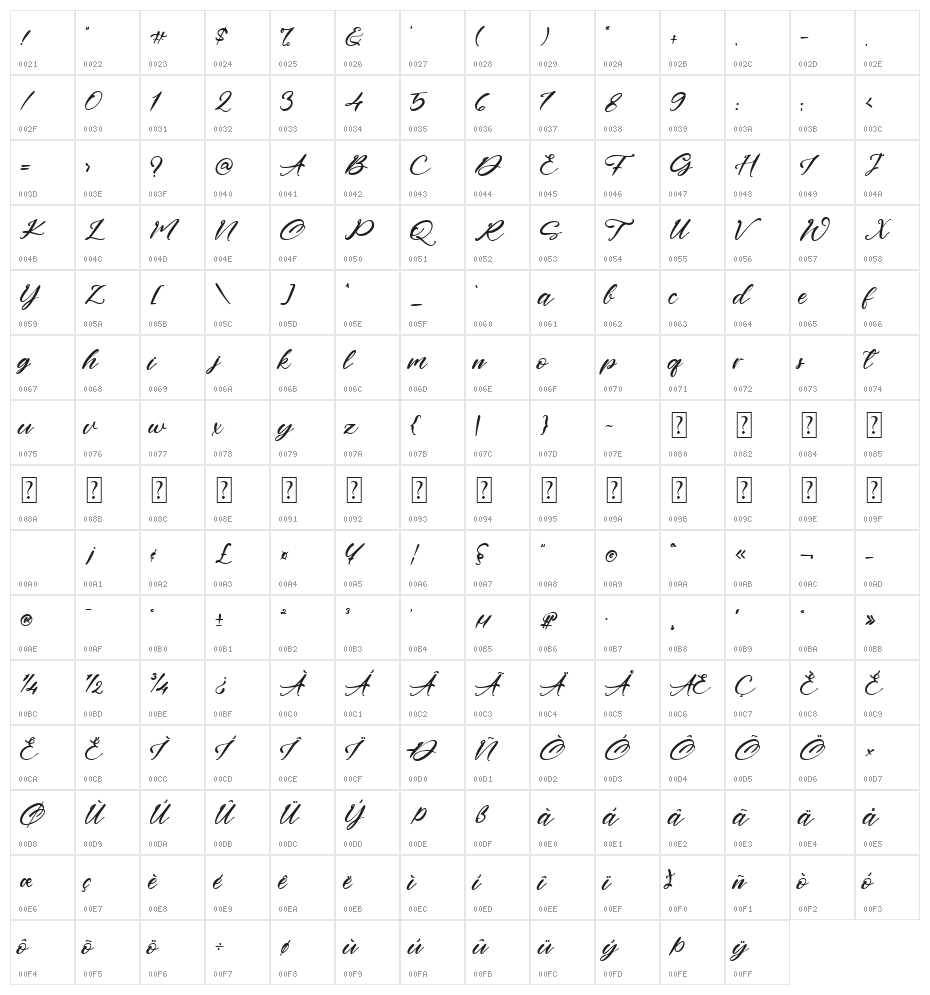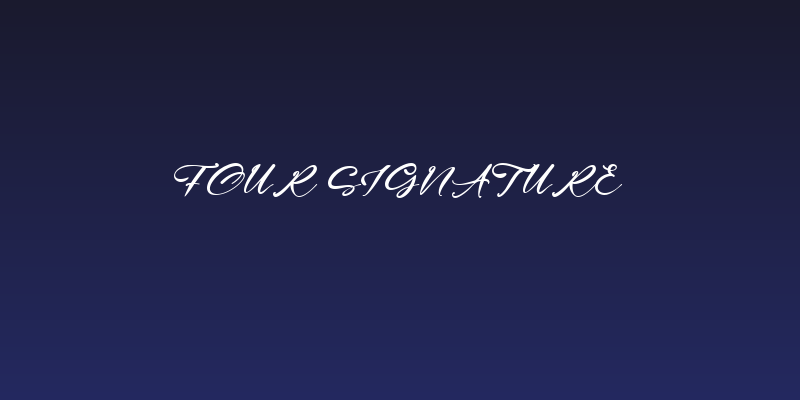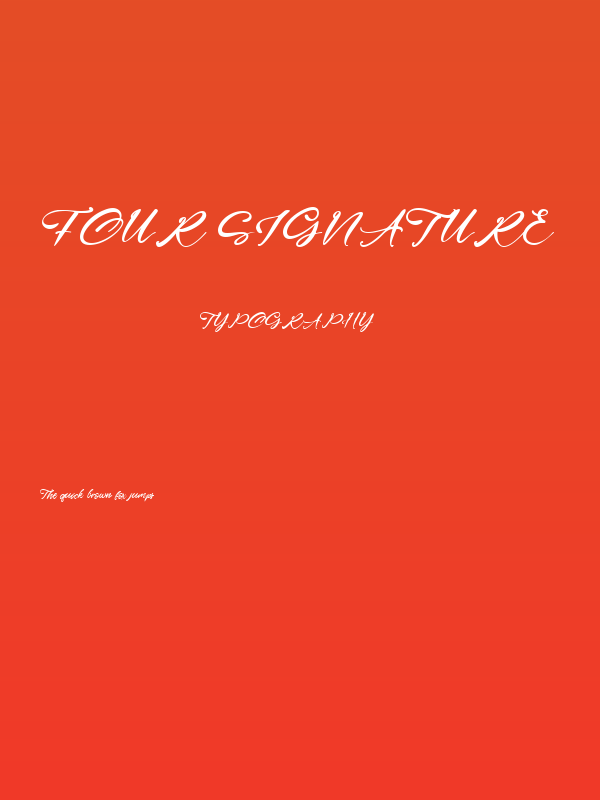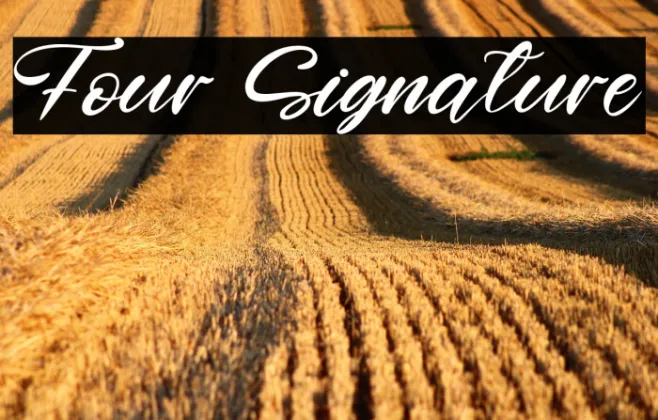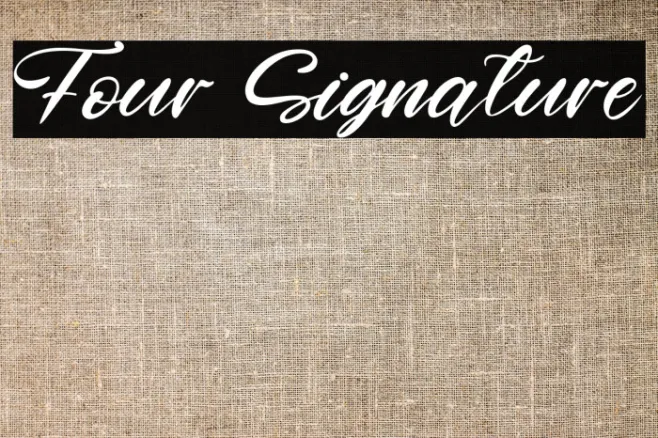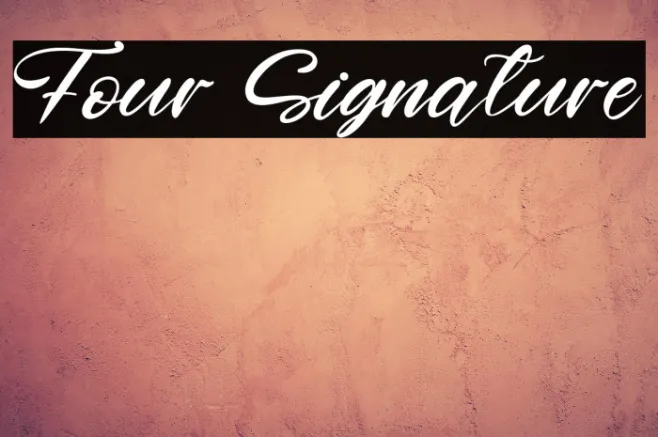
Four Signature Font
Four Signature Description
This elegant script font features flowing, cursive letters with a refined and sophisticated appearance. The uppercase letters are ornate with sweeping curves and flourishes, while the lowercase letters maintain a consistent, smooth flow. The numbers and special characters are designed to complement the overall style, adding a touch of class and elegance. The font's strokes are moderately thick, providing a balanced contrast that enhances readability while maintaining its decorative appeal. This font is perfect for projects that require a touch of elegance and sophistication, such as wedding invitations, formal event programs, or high-end branding materials.
| Overall Style | Elegant, Sophisticated |
| Use Case | Headlines, Invitations, Branding |
| Proposed Projects | Ideal for wedding invitations, formal event programs, and luxury branding. |